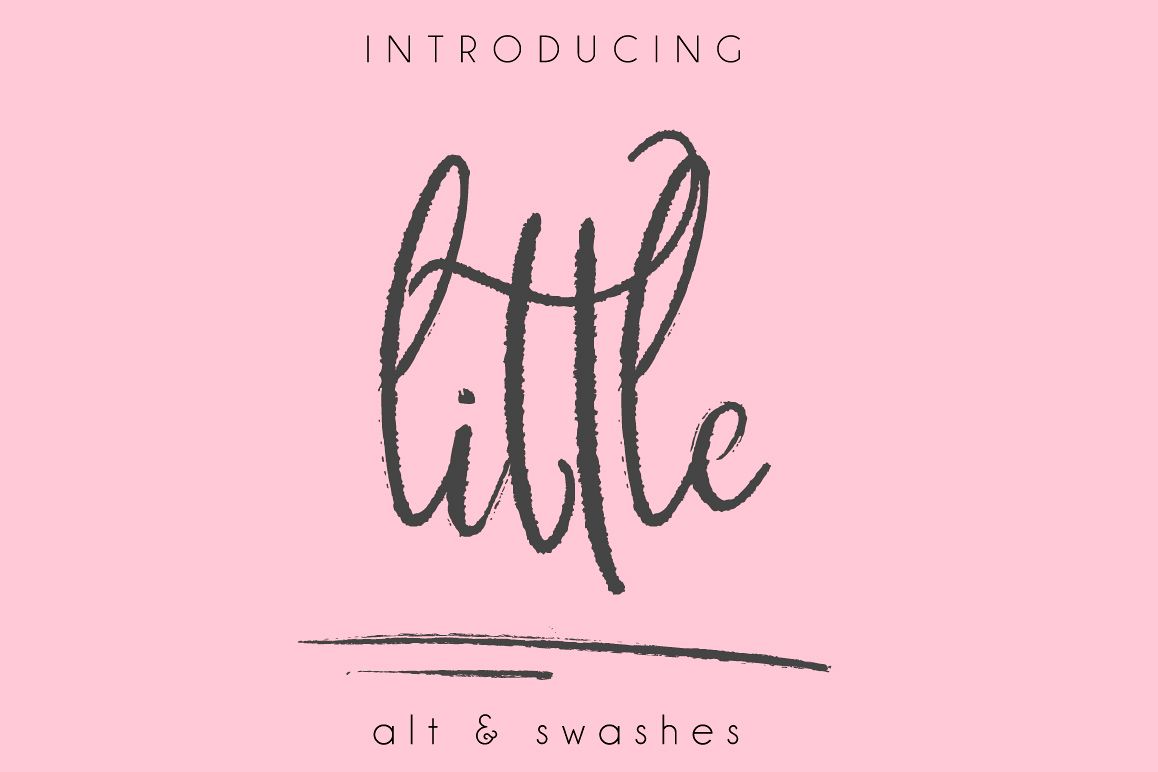
Little Moose Script
It's handwritten script with many different swatches, alternative letters and ligatures. This font is ideal for branding and decorate your any project.
This font are perfect for wedding invitation or your blog. Also with their help, you can create a logo or beautiful frame for your home. Or just use for your small business, book covers, stationery, marketing, magazines and more.